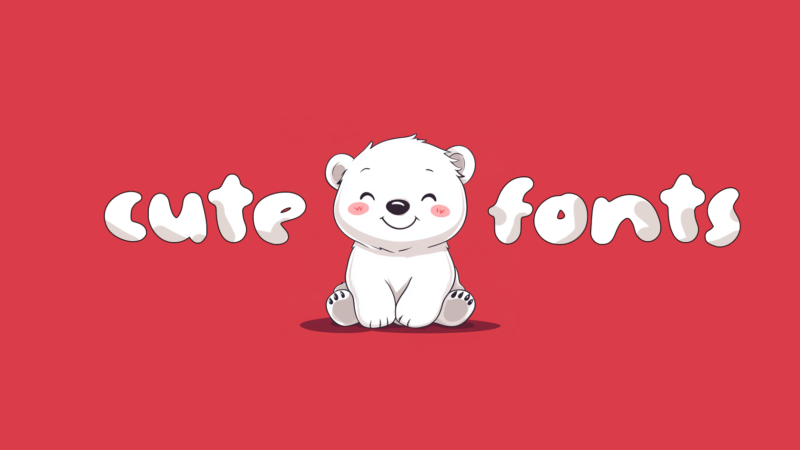
As a designer who’s worked on countless playful projects over the years, I’ve learned that finding the perfect cute font can transform an ordinary design into something magical. Whether you’re creating greeting cards, children’s books, or brand designs that need a touch of whimsy, the right font choice can make all the difference.
In this post, I’ll share my favorite cute fonts for 2025 and help you understand how to use them effectively. From bouncy scripts to playful sans serifs, we’ll explore what makes a font “cute” and how to harness that charm in your designs.
My 53 Favorite Cute Fonts Right Now
Cute Jellyfish
Cute Jellyfish is a playful and modern sans-serif typeface. Its rounded edges and whimsical character make it perfect for children’s designs or any project requiring a friendly, approachable feel.
Cute Love
Cute Love is a decorative font designed with romance in mind. Its curvy, heart-inspired letterforms make it ideal for Valentine’s Day designs, wedding invitations, or any project that needs a touch of affection.
Jacklyn Cute
Jacklyn Cute is a colorful and vibrant decorative font. Its playful design and varied hues make it perfect for children’s books, toy packaging, or any design that aims to capture a youthful, energetic spirit.
Cute Gorilla
Cute Gorilla is a handwritten script font with a decorative twist. Its playful swashes and animal-inspired symbols make it ideal for nature-themed designs, children’s products, or any project needing a touch of whimsy.
Cuteness Space
Cuteness Space is a unique handwritten script font with a celestial theme. Its charming letterforms and star-like details make it perfect for dreamy, space-inspired designs or children’s storybooks.
Mellow Cute
Mellow Cute is a modern script font with a comic-inspired flair. Its smooth, flowing lines and playful character make it suitable for casual branding, social media graphics, or any design that needs a friendly, approachable touch.
Auglie | A Cute Font
Auglie is a versatile cute font that combines elements of sans-serif, script, and decorative styles. Its fancy yet approachable design makes it perfect for branding projects, children’s products, or any design that needs a touch of whimsy.
Masa Friday Cute | A Cute Handwritten Font
Masa Friday Cute is a charming handwritten font with a touch of sans-serif simplicity. Its natural flow and subtle irregularities make it ideal for wedding invitations, personal branding, or any project requiring a genuine, handcrafted feel.
Cute Melody – Cute Handwritten Font
Cute Melody is a playful handwritten font with a musical twist. Its quirky letterforms and fun character make it perfect for children’s designs, music-related projects, or any layout that needs a touch of humor and personality.
Liquids – Cute Display
Liquids is a playful display font with a fluid, organic feel. Its rounded, bubble-like letterforms make it ideal for designs related to beverages, cosmetics, or any project that needs to convey a sense of fun and movement.
Catheline Cute Script
Catheline Cute Script is an elegant handwritten font with a touch of whimsy. Its flowing lines and subtle decorative elements make it perfect for branding projects, wedding stationery, or any design that requires a balance of sophistication and charm.
Siloam – Cute Handwritten
Siloam is a charming handwritten font with a natural, authentic feel. Its slightly irregular letterforms and casual style make it ideal for personal branding, blog headers, or any project that aims to create a friendly, approachable atmosphere.
Charlemon Cute Font
Charlemon is a versatile cute font that combines script, serif, and sans-serif elements. Its playful design and lemonade-inspired theme make it perfect for summer-themed projects, beverage branding, or any design that needs a refreshing, cheerful touch.
BATAGOR – CUTE FONT
BATAGOR is a bold, decorative font with a cute twist. Its display-style letterforms and cursive-inspired elements make it ideal for eye-catching headlines, logo designs, or any project that needs to make a strong, playful statement.
Momotako – Cute Playful
Momotako is a fun and playful sans-serif font with decorative elements. Its rounded edges and cheerful character make it perfect for children’s products, toy packaging, or any design that aims to capture a sense of joy and excitement.
Starylight – Cute Font
Starylight is a quirky handwritten font with a touch of whimsy. Its unique letterforms and star-inspired elements make it ideal for branding projects, children’s book covers, or any design that needs to stand out with a cute, celestial theme.
Making Cute Fonts Work For You
Cute fonts can add personality and charm to your designs, but they need to be used thoughtfully. The goal is to enhance your message, not overshadow it.
Remember, what makes a font truly cute isn’t just its shape – it’s how well it connects with your audience and serves your design’s purpose. Used wisely, these fonts can create engaging, memorable designs that make people smile.